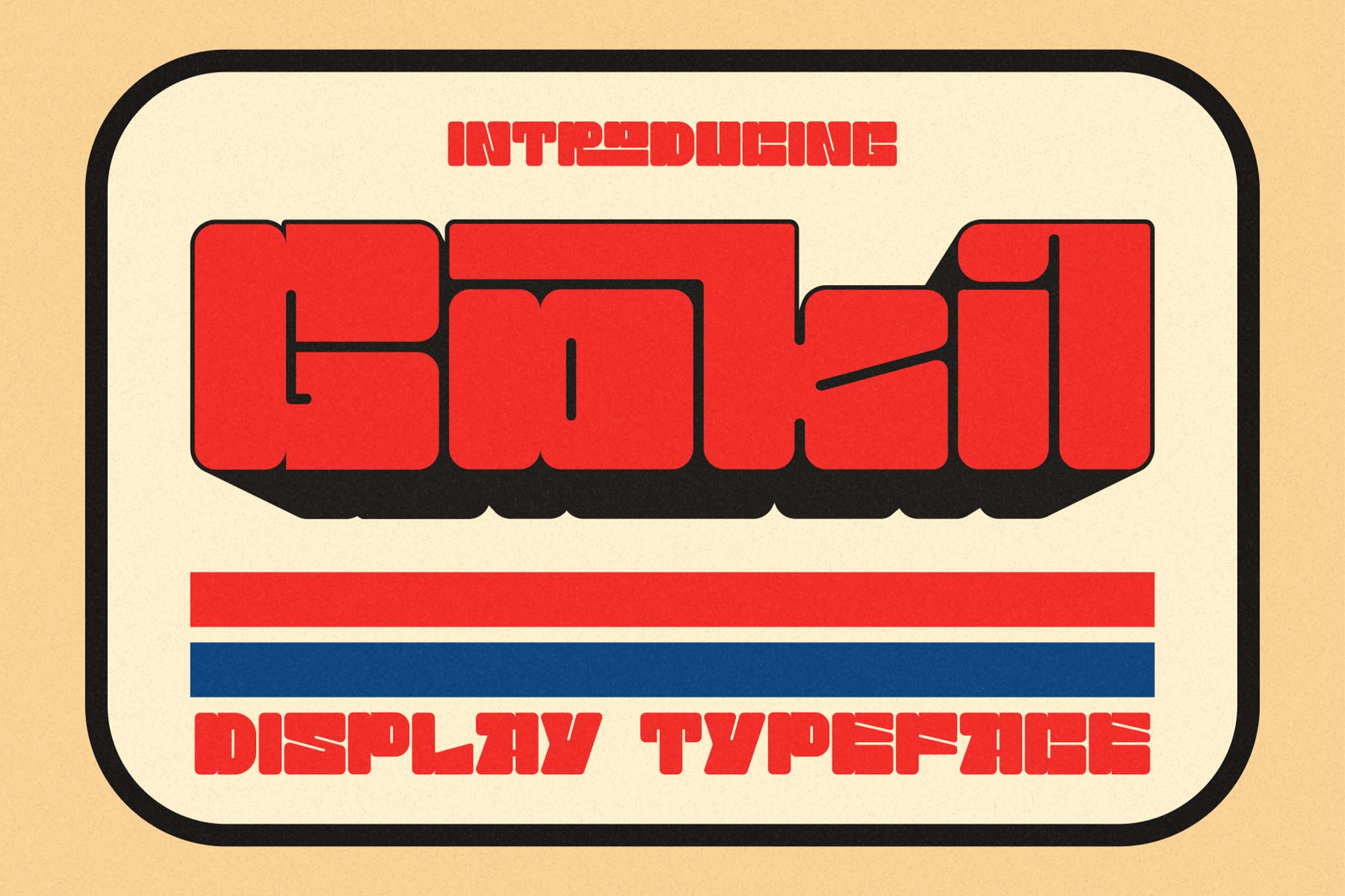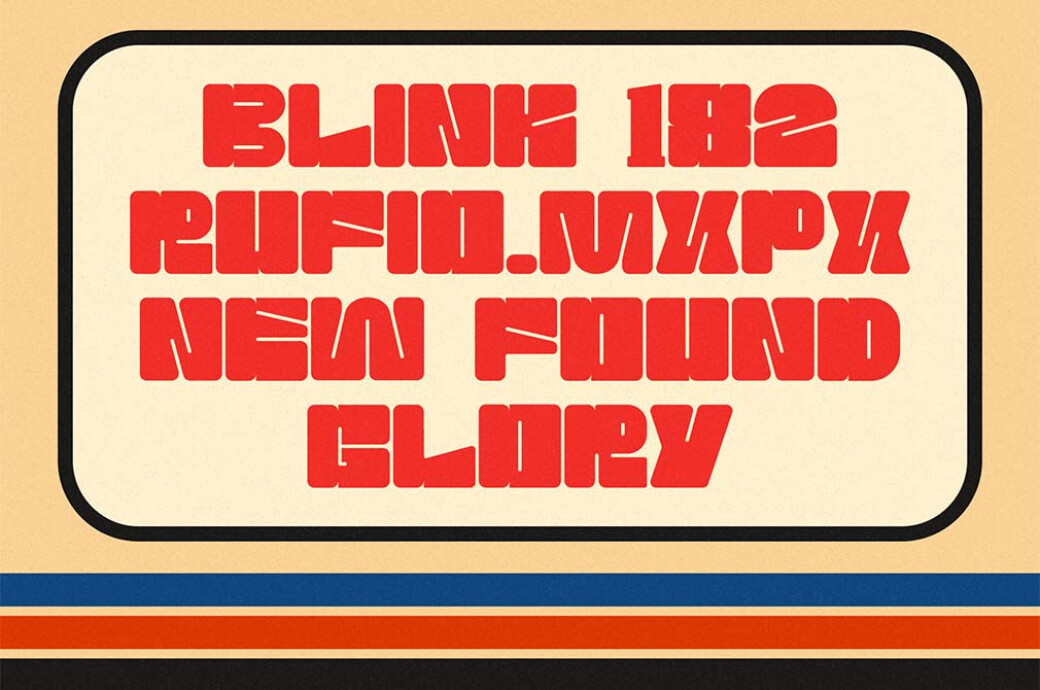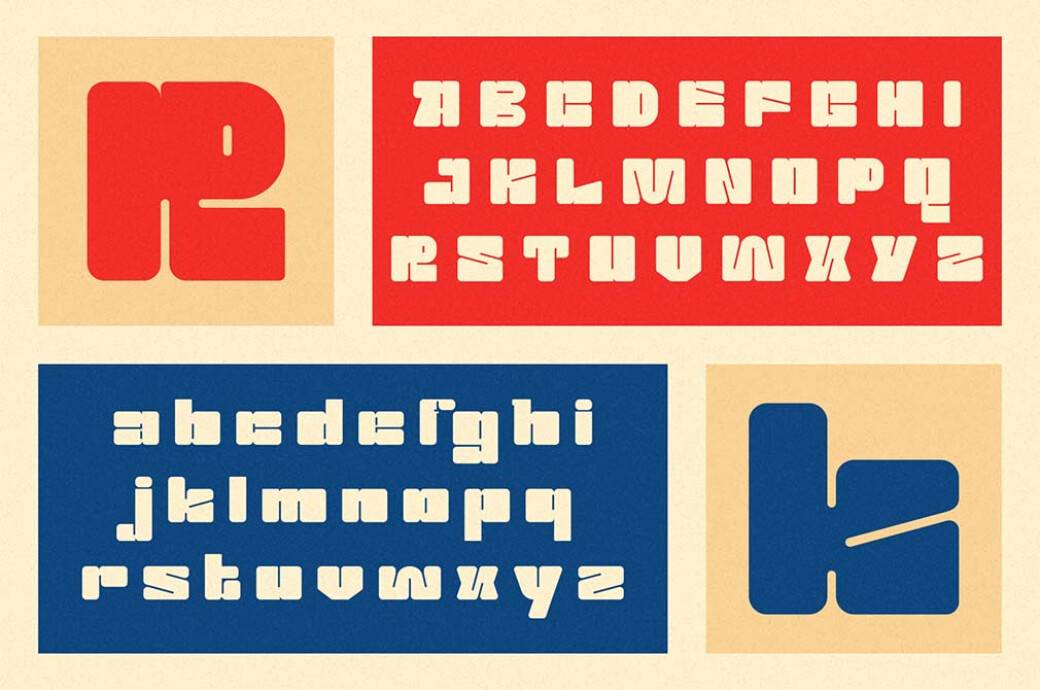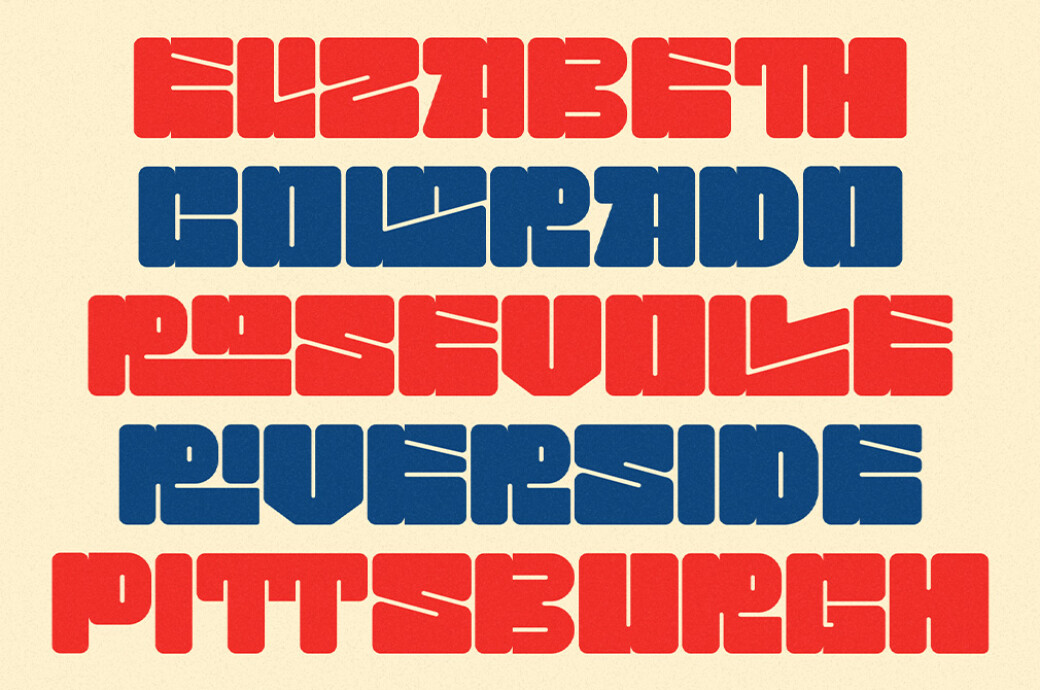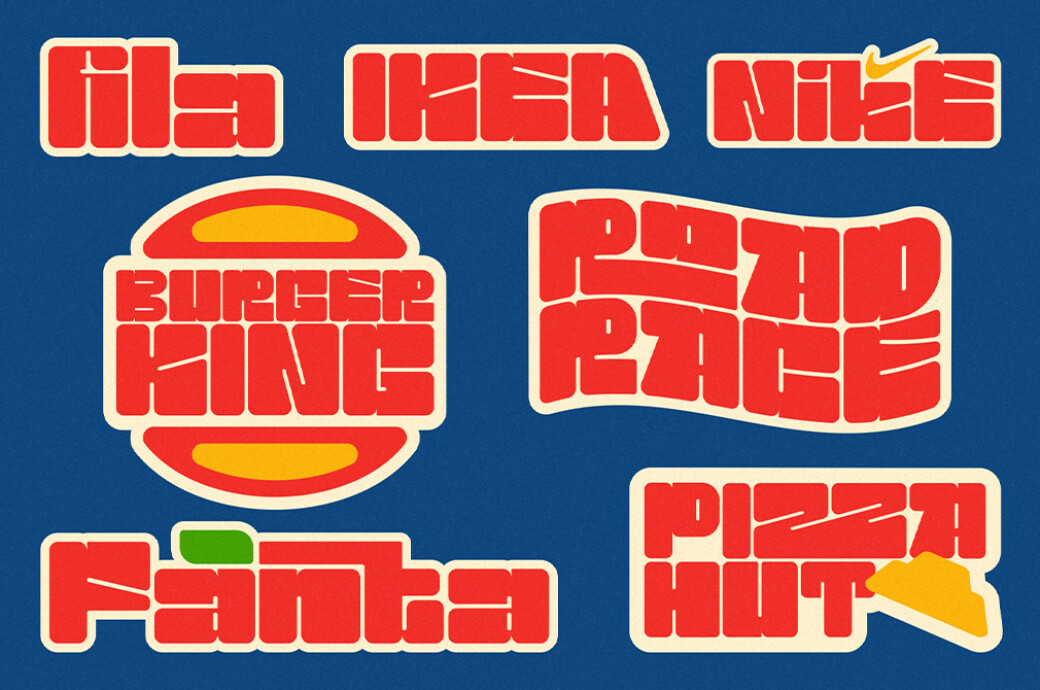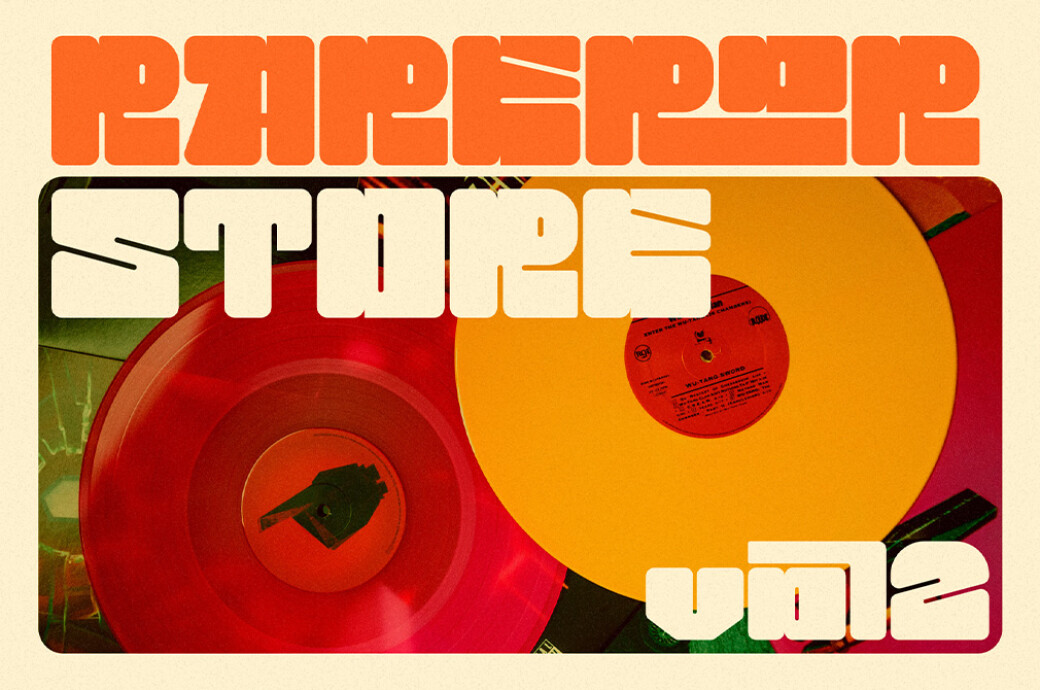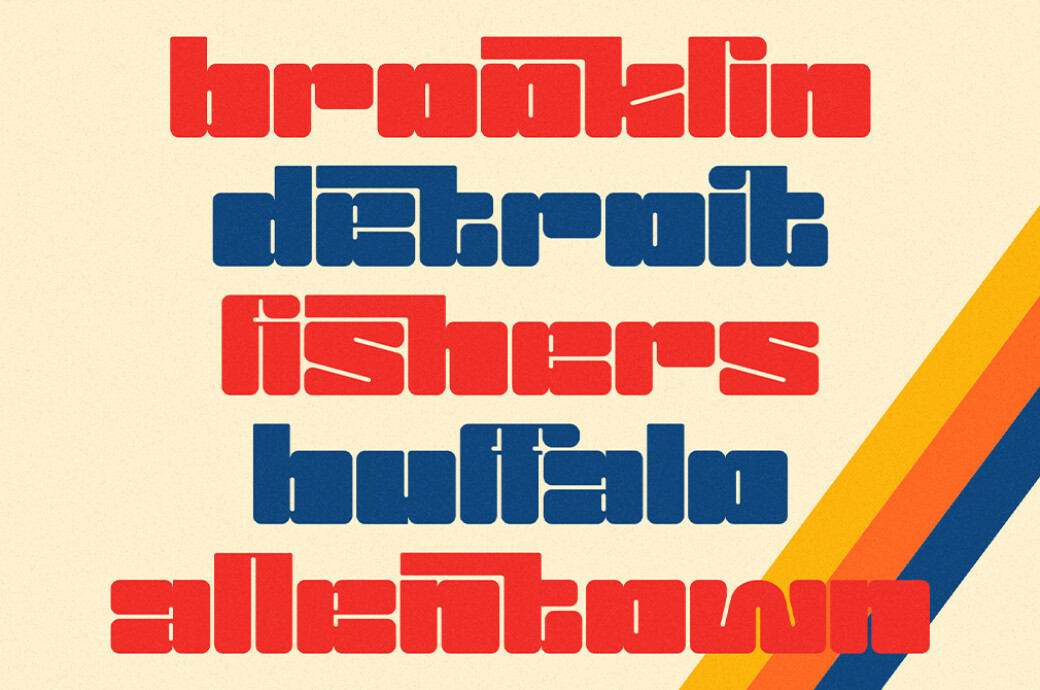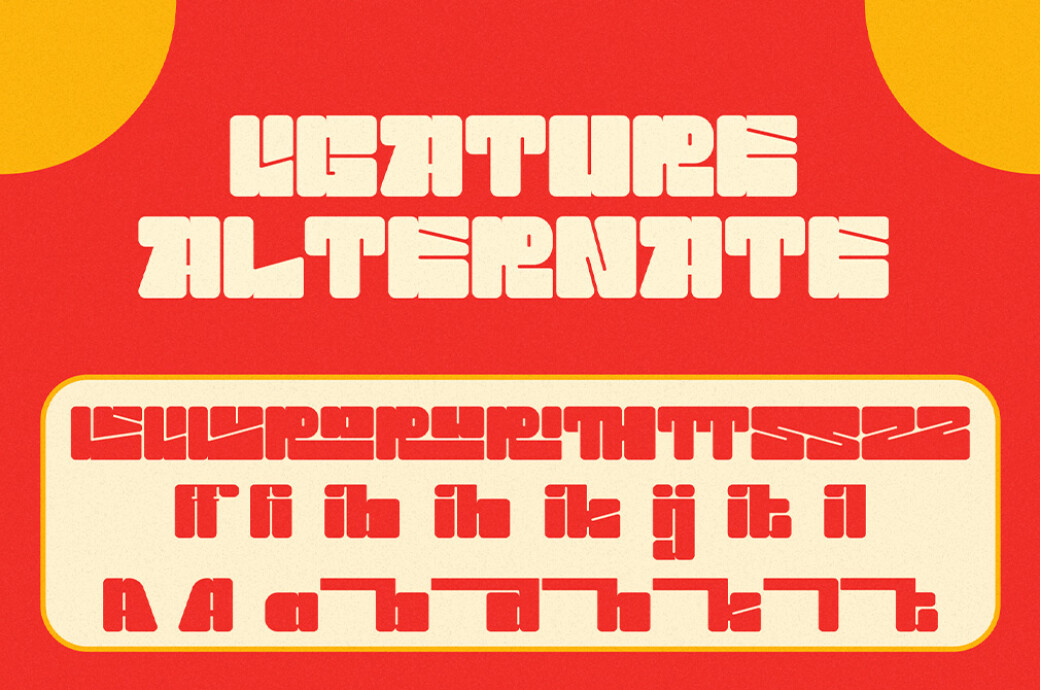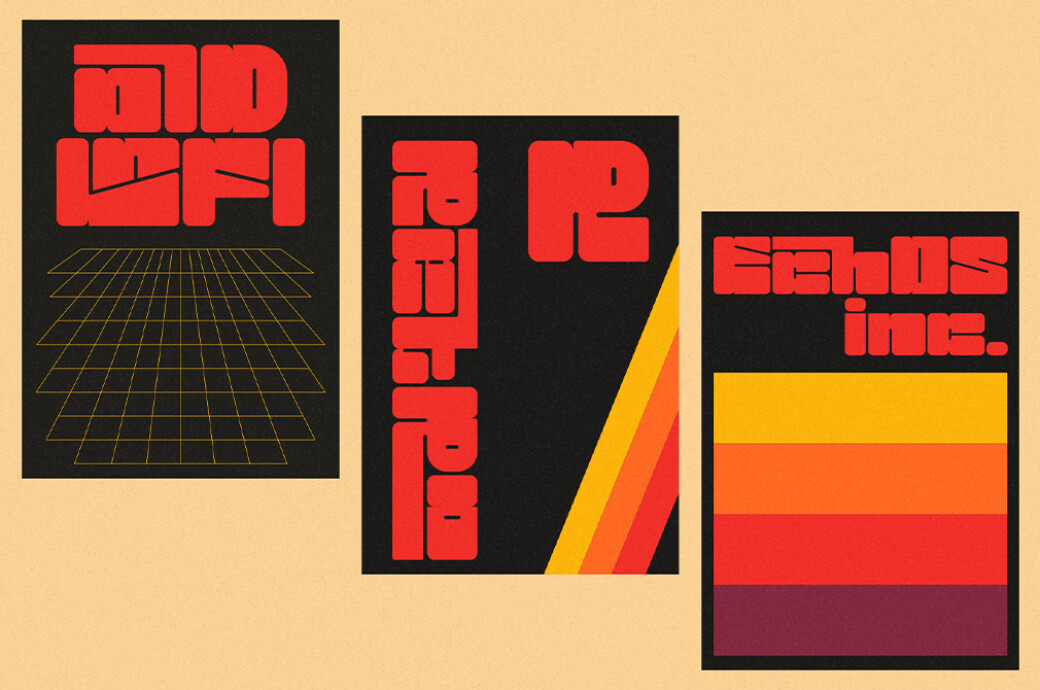
Gokil — Retro Display Font
When channeling the style retro goes before absolute legibility Gokil is the perfect choice. Loaded with tons of hipster and vintage aesthetics, it will instantly set the mood for the whole project.
This unique display font with bold but soft and rounded letter shapes will adorn many design projects, such as posters, logo designs, branding, magazine covers, stickers, and more. The typeface includes upper and lowercases, numerals and punctuation marks, as long as ligature alternates for adding extra authentic flare to your creations. Moreover, the font provides multilingual support so you can go global with it.